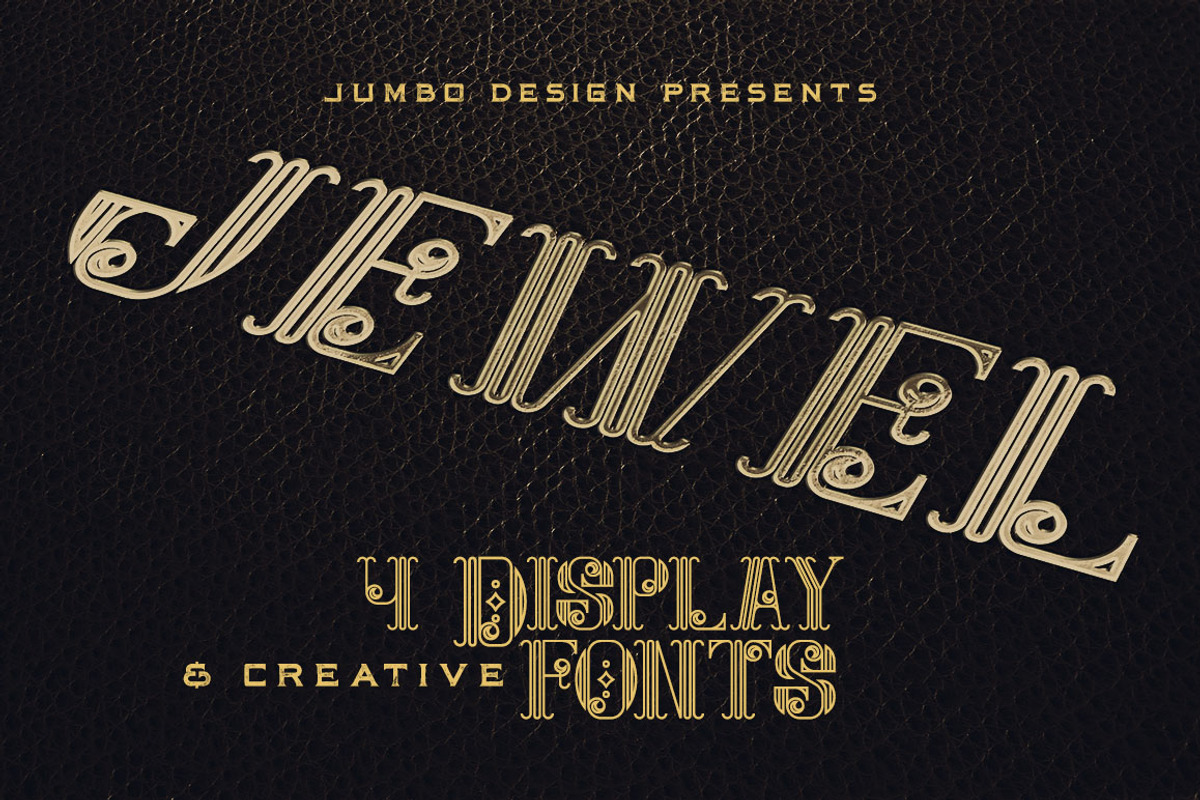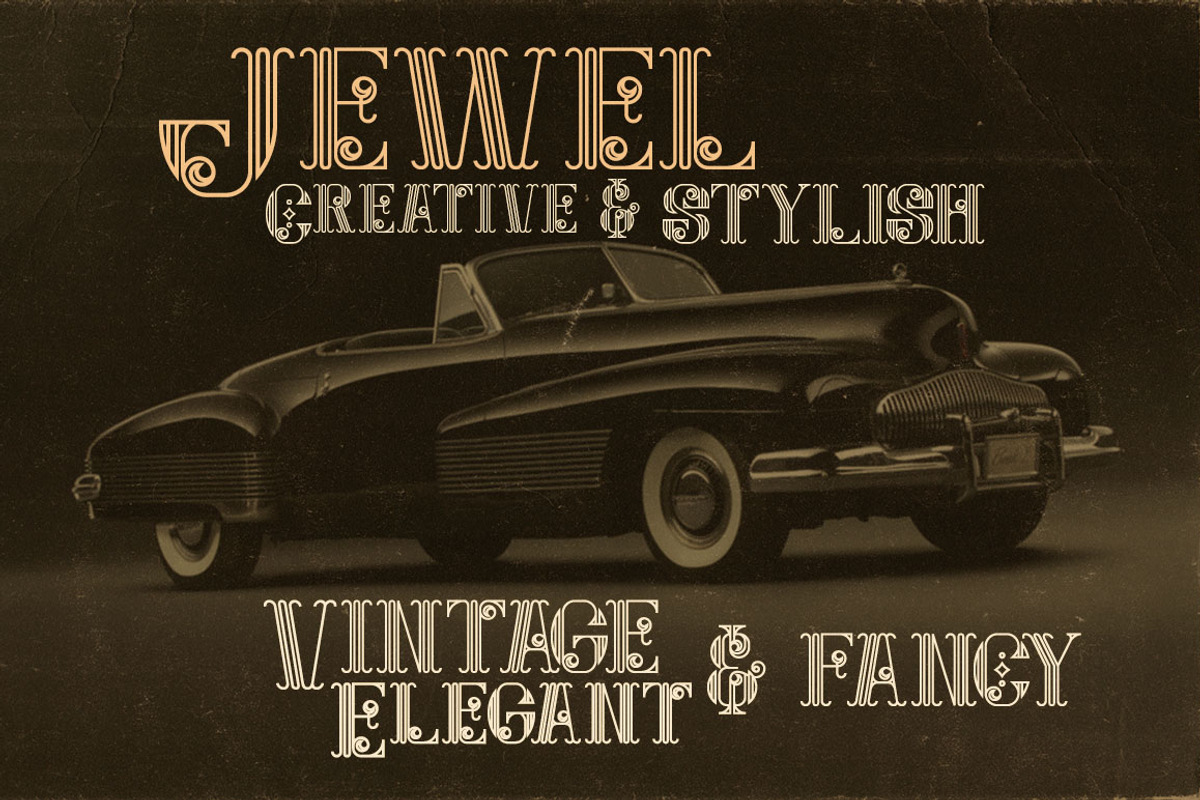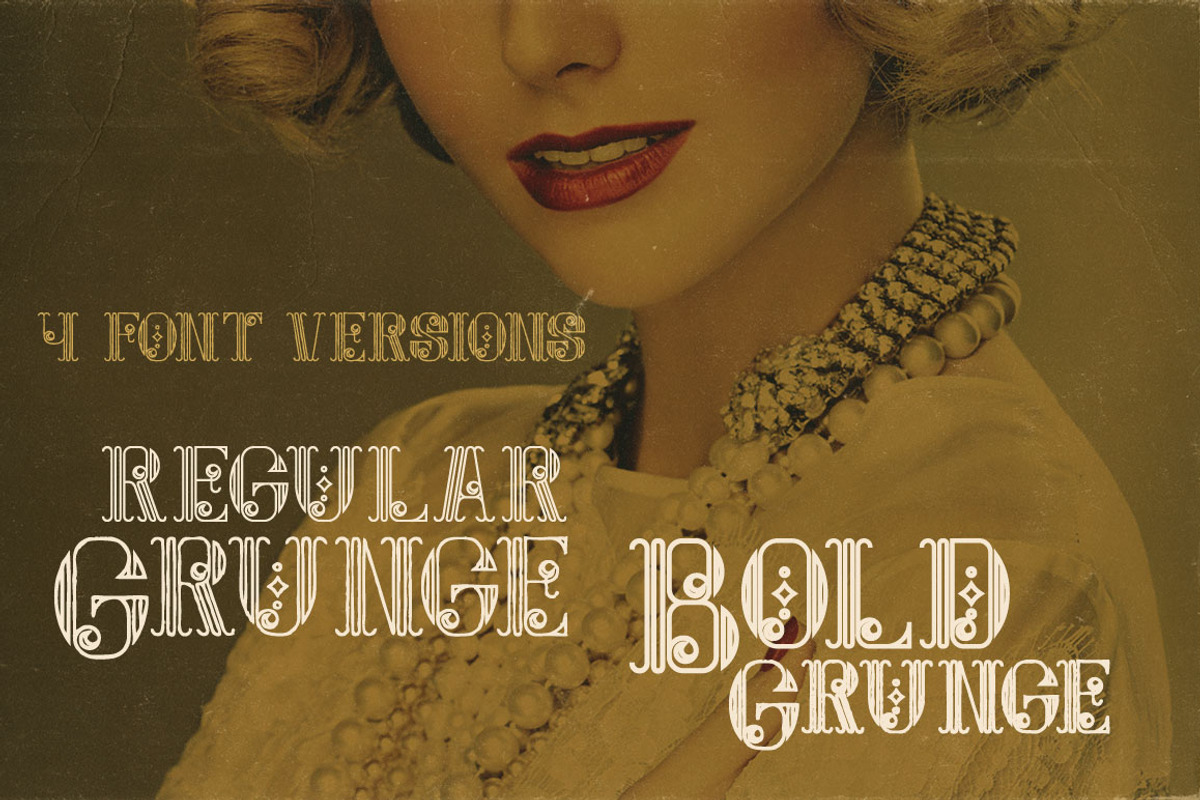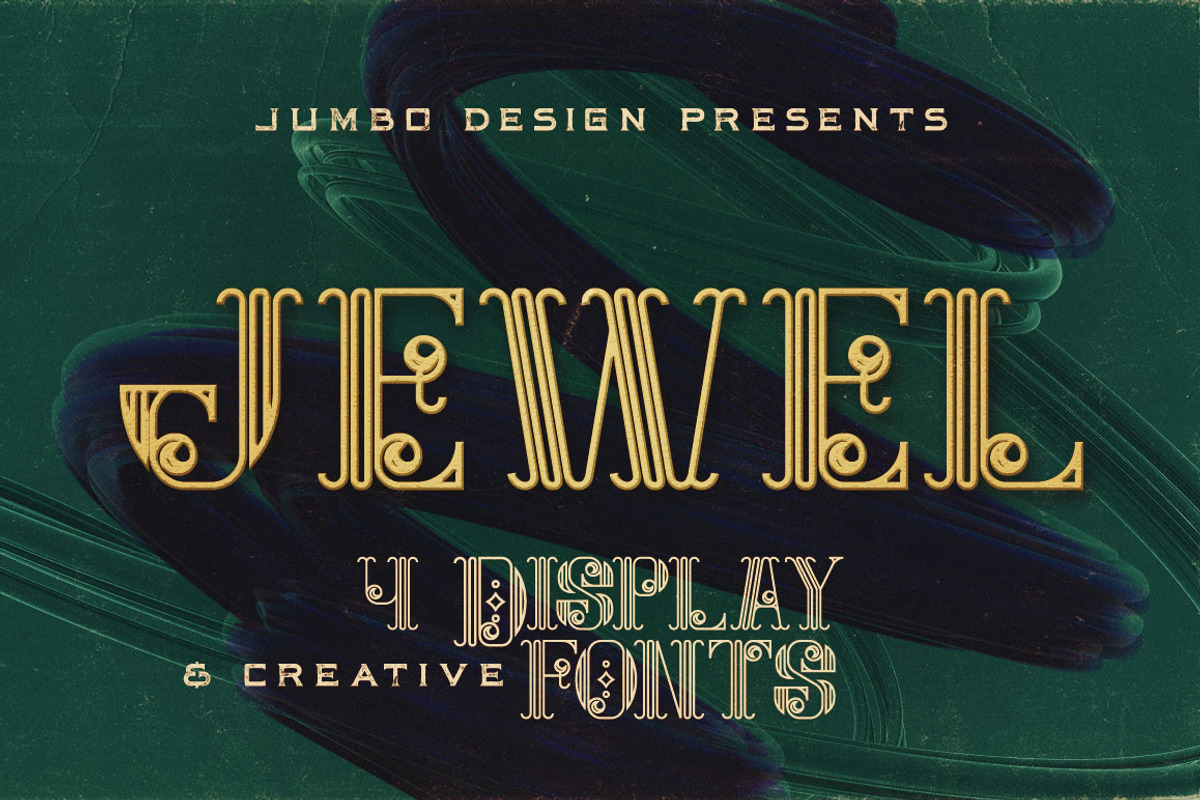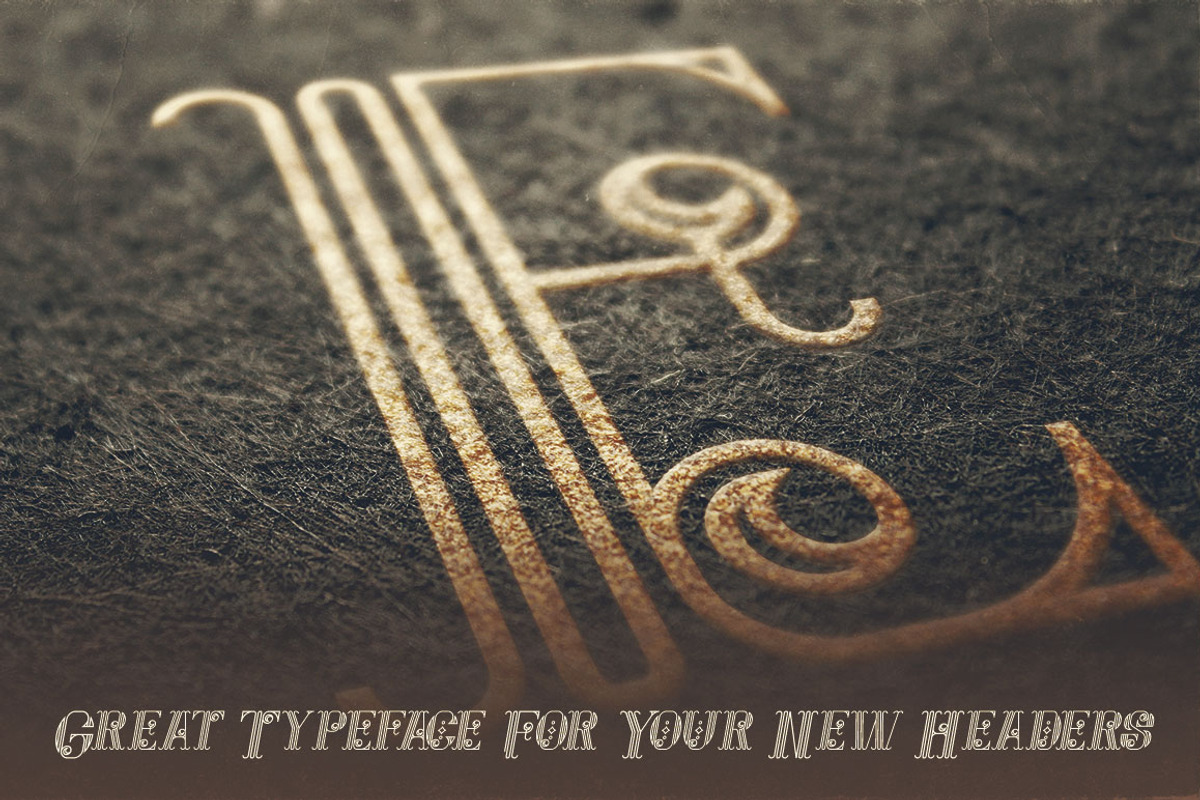
Jewel - Display Font
Unique vintage or retro style custom line serif font with 4 styles: regular and grunge, bold and bold grunge!
Why Jewel - Display Font is worth a look
Jewel - Display Font by JumboDesign fits naturally into Branding, posters, packaging, typography.